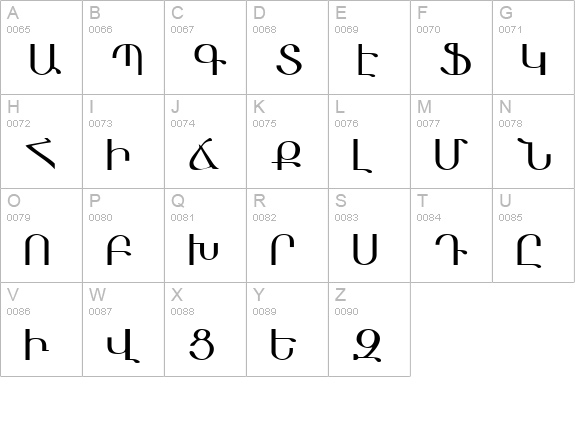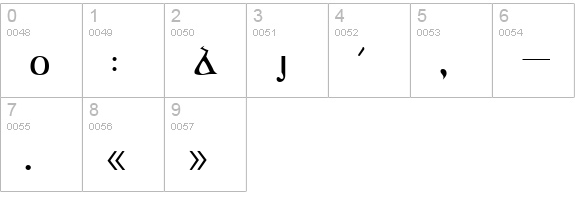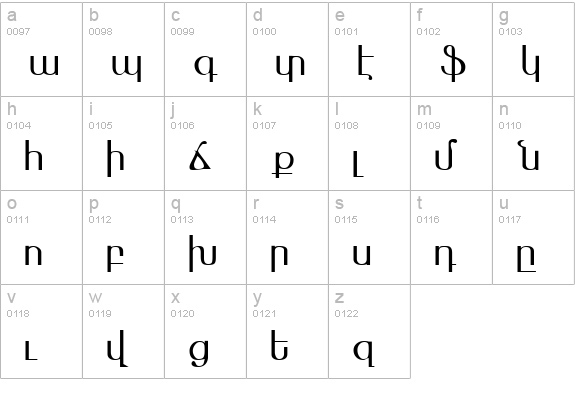
Masis Font Details
Introducing Masis, a stunningly elegant font that effortlessly captures attention with its timeless charm and sophisticated demeanor. Masis is a versatile typeface that strikes the perfect balance between classic and contemporary, making it an ideal choice for a wide range of design projects. With its graceful curves and meticulously crafted letterforms, Masis exudes a sense of refinement and professionalism. Each character is carefully balanced, ensuring legibility and readability across various mediums, whether it be print or digital. But what truly sets Masis apart is its accessibility. This exceptional font is not only aesthetically pleasing but also freely available to download at FontsMarket.com. Yes, you read that right – Masis can be yours without any cost, allowing you to elevate your designs without breaking the bank. Whether you're designing a logo, creating a stunning website, or crafting eye-catching marketing materials, Masis provides the perfect foundation for your artistic vision. Its versatility shines through in every project, effortlessly adapting to any style or concept you have in mind. Masis is more than just a font – it's a statement of elegance and sophistication. It elevates your designs, making them memorable and captivating. So why wait? Discover the allure of Masis today and unlock a world of creative possibilities by downloading it for free at FontsMarket.com.